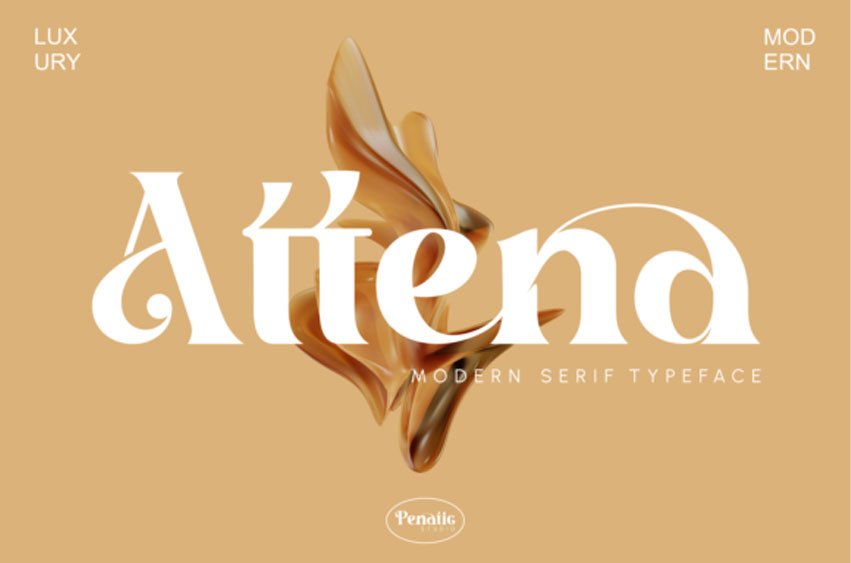
Attena Font is a modern serif font designed with many ligatures and alternatives to make it versatile. This typeface is suitable for all brand identity needs, invitation cards, poster designs, and more. This font looks modern, and it is suitable for classic styles because of the appropriate thickness of its characters.